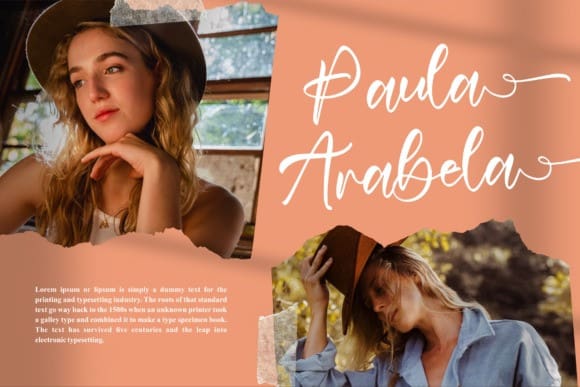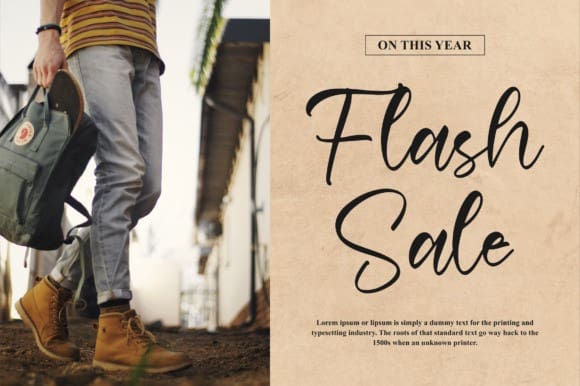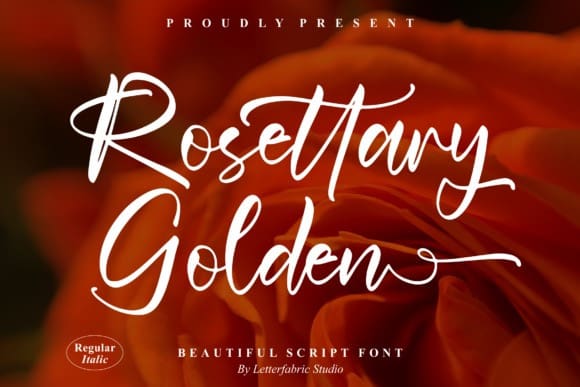
Rosettary Golden Font
Rosettary Golden Font, is a gorgeous script font. It is suitable for any projects such as: logos, branding projects, homeware designs, product packaging, mugs, quotes, posters, special events, and all your other lovely projects that need a beautiful script taste.